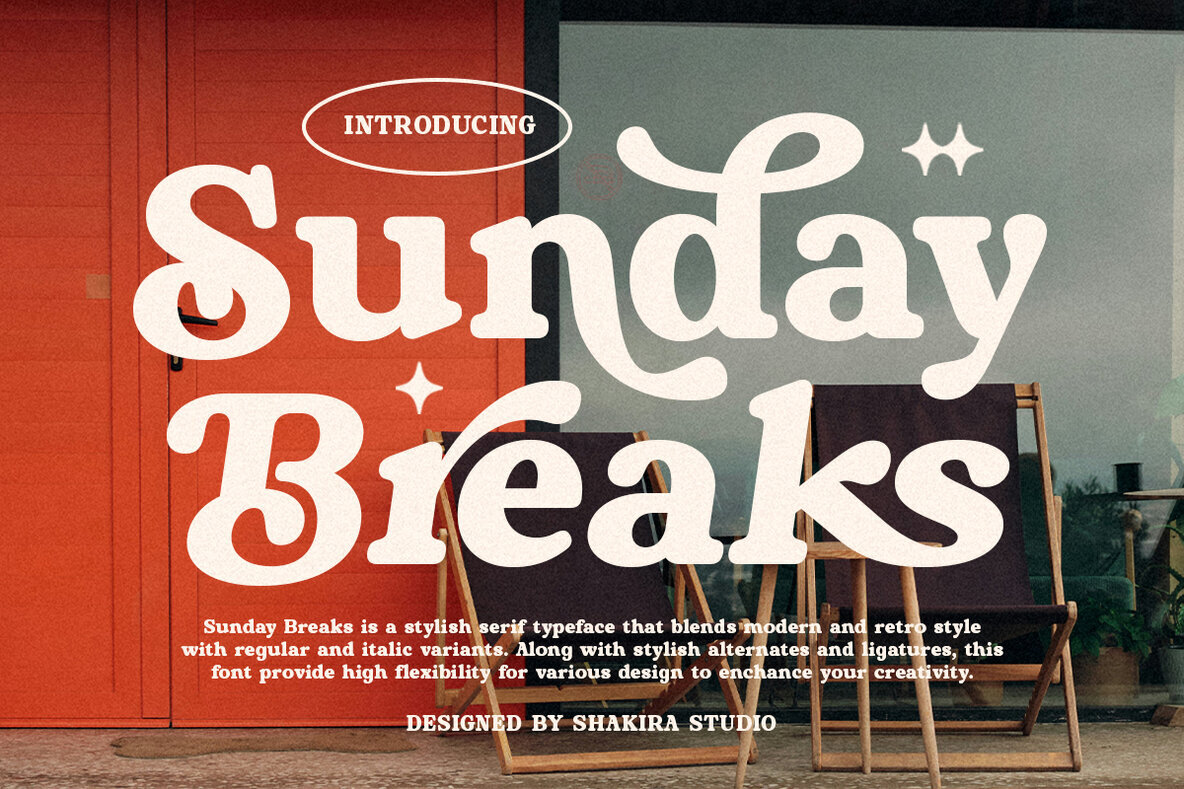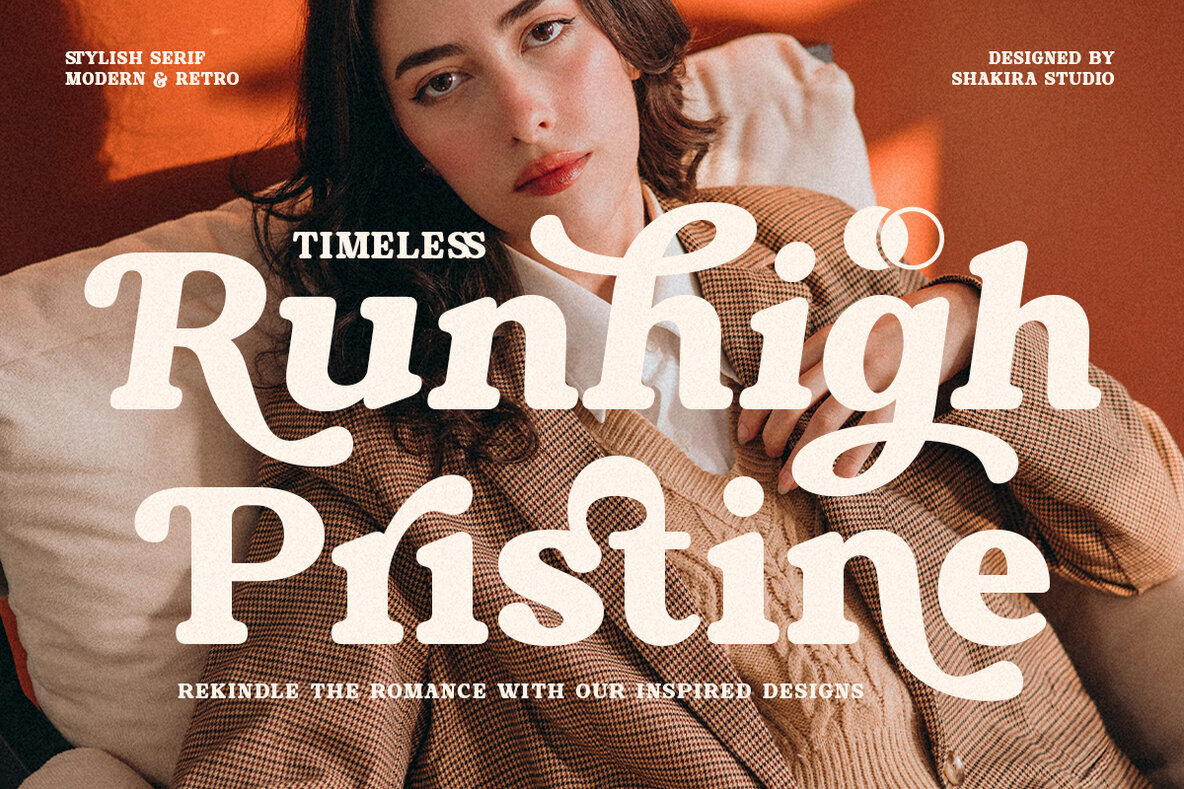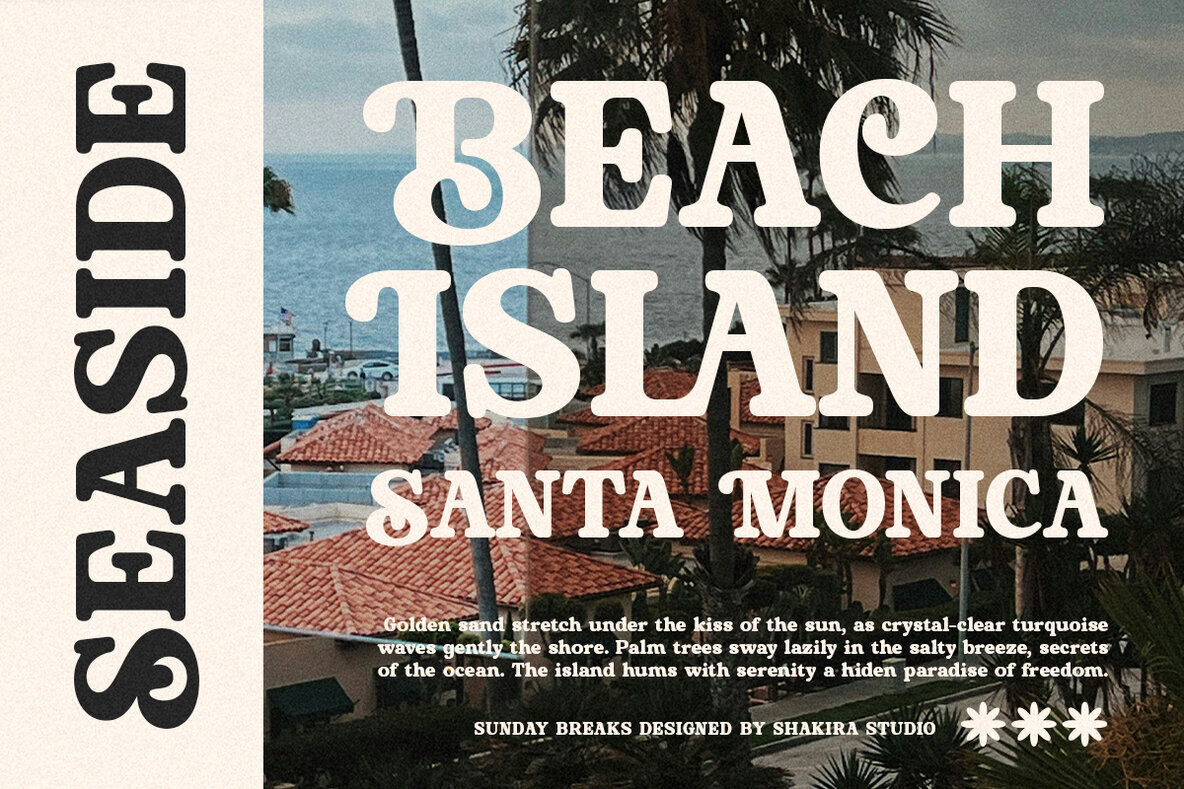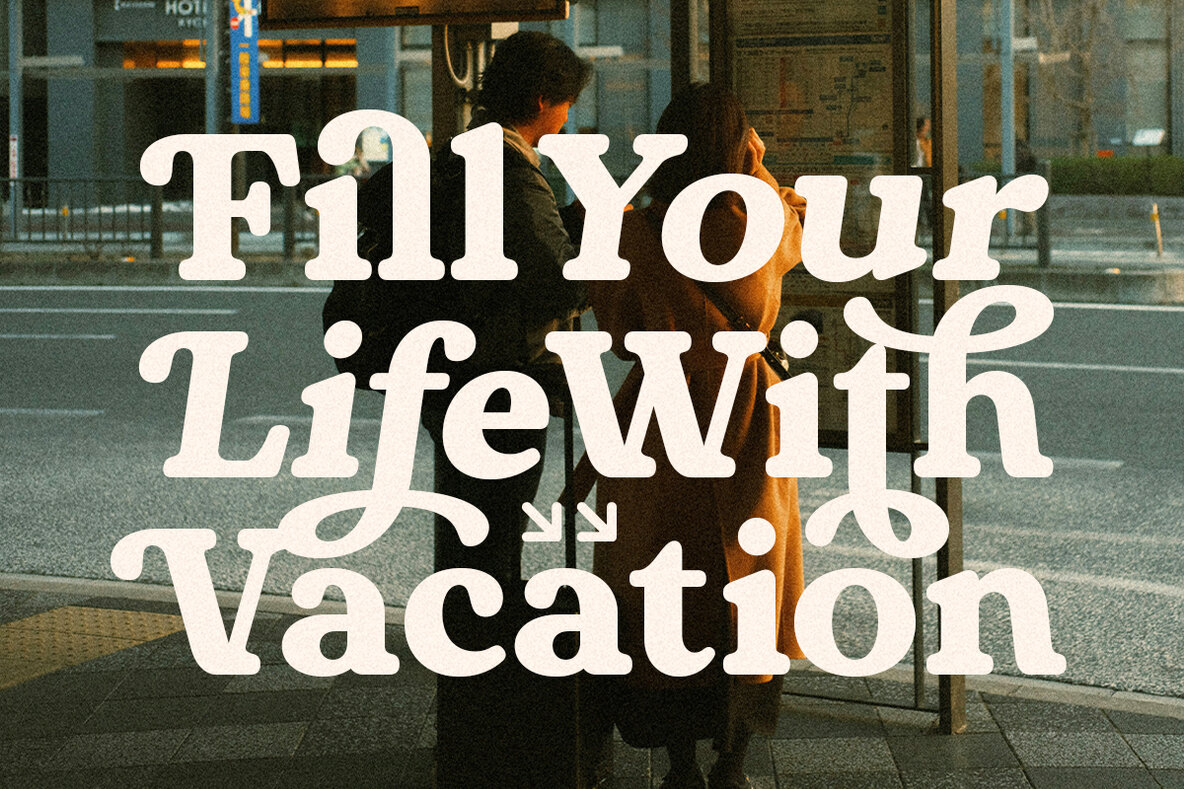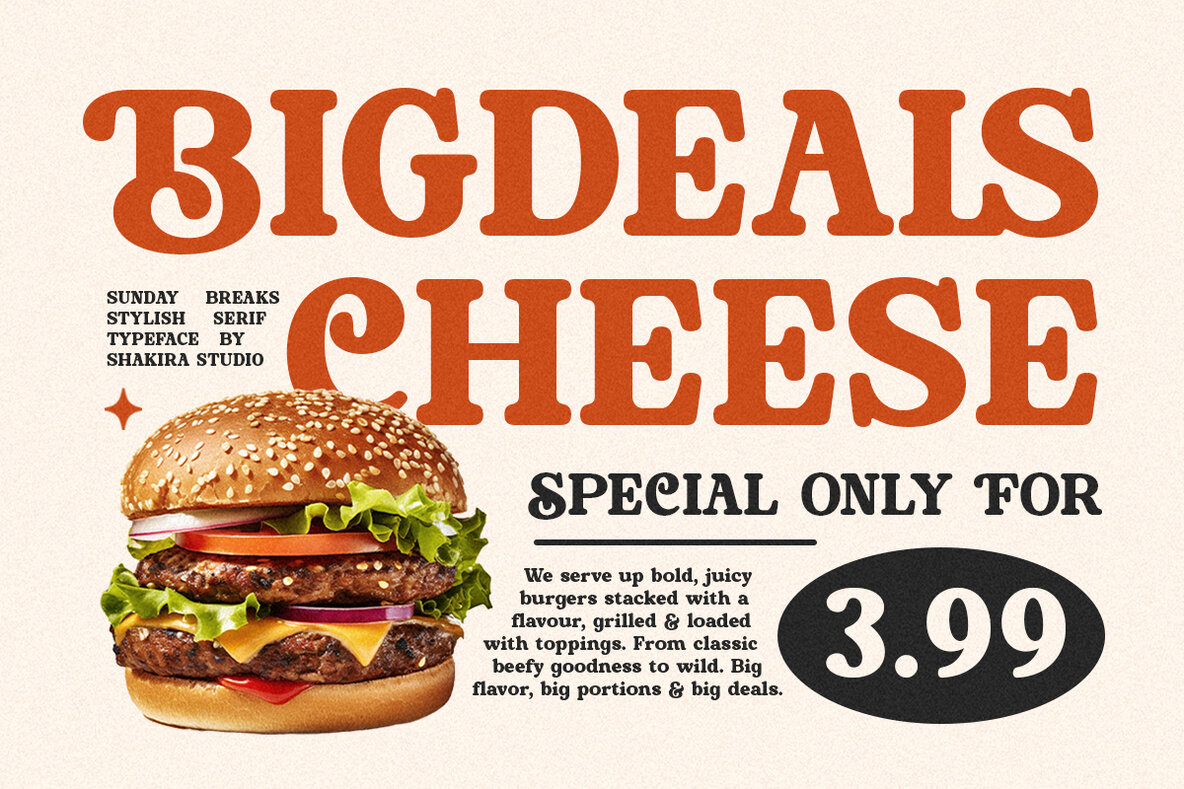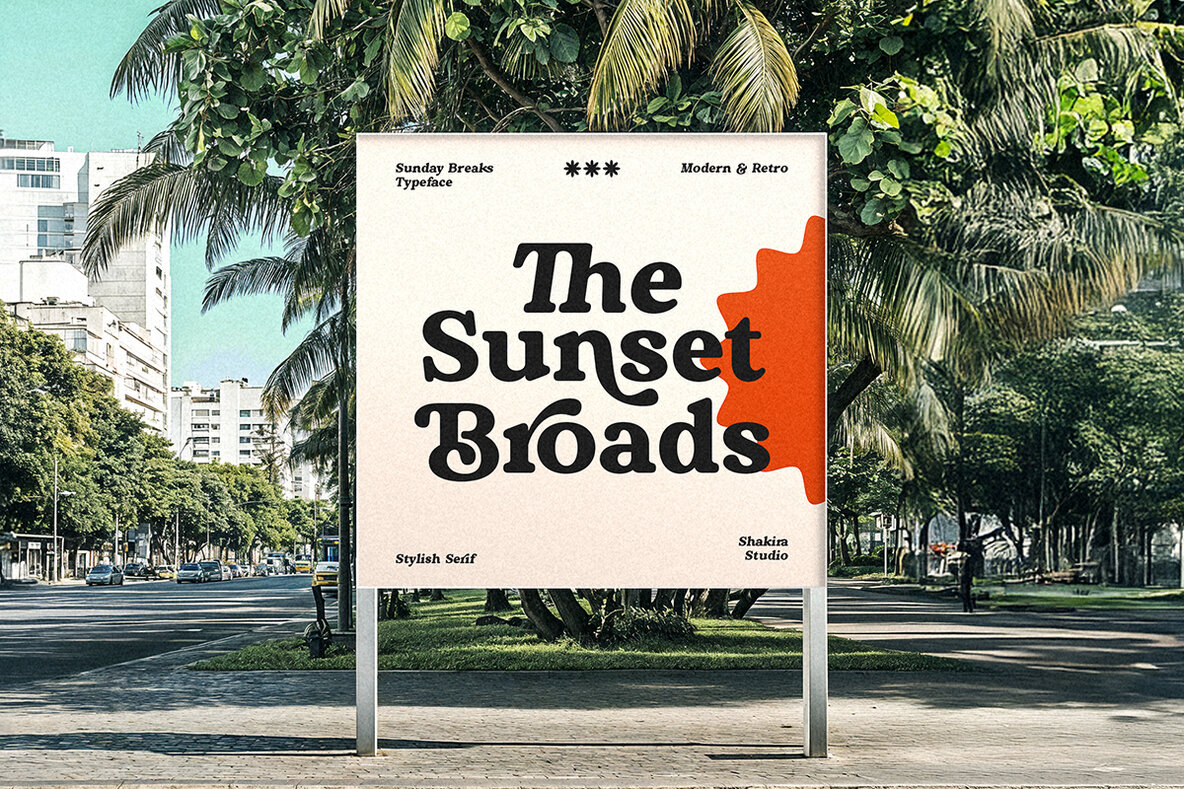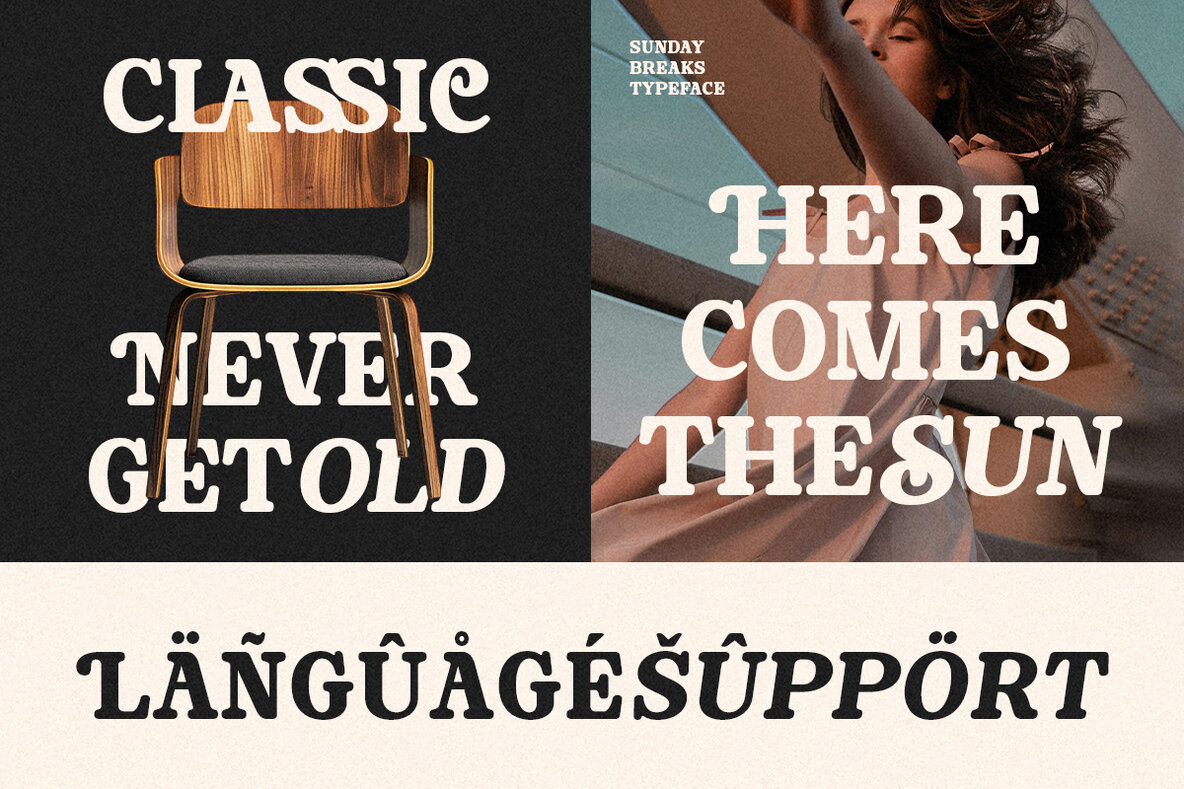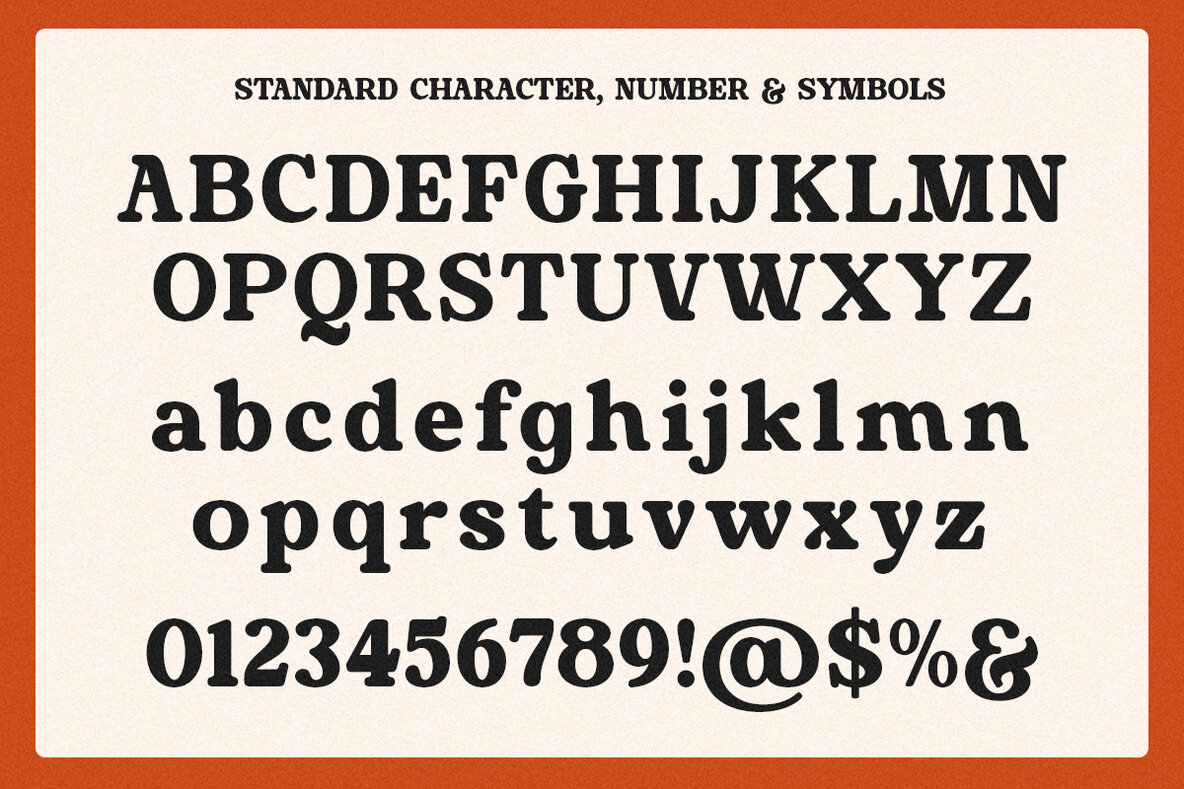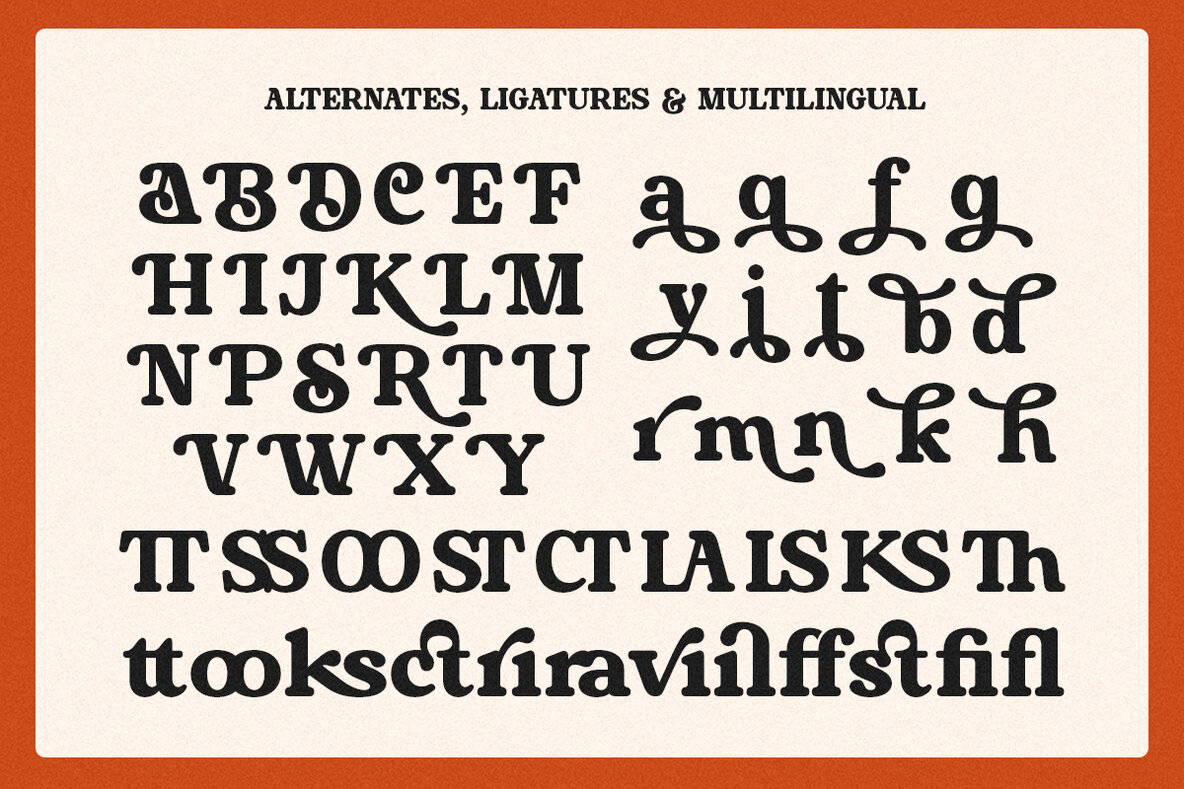
Sunday Breaks Font
Sunday Breaks - Modern Retro Serif Font for Nostalgic Branding Sunday Breaks is a captivating serif typeface that blends vintage charm with contemporary flair. Featuring both Regular and Italic styles with stylish alternates and ligatures, this font is expertly crafted for retro-inspired branding, memorable logos, eye-catching packaging, and editorial designs that demand character and warmth. Where Vintage Aesthetics Meet Modern Versatility With its distinctive serifs and playful italic variant, Sunday Breaks delivers exceptional flexibility for brands seeking both nostalgia and freshness. The carefully designed alternates and ligatures enable authentic retro styling with modern readability. Premium Features Include: Bring Retro Charm to Your Modern Designs Ideal for: Available Now – Relive the Golden Era with Sunday Breaks!